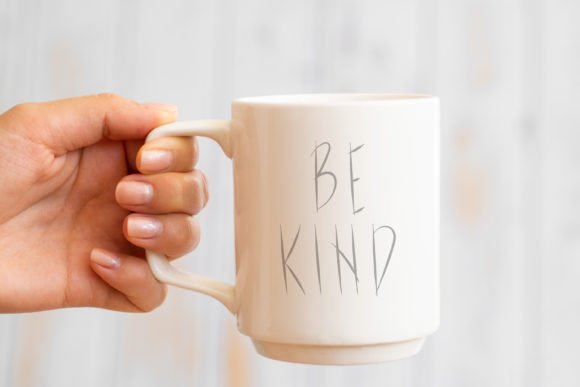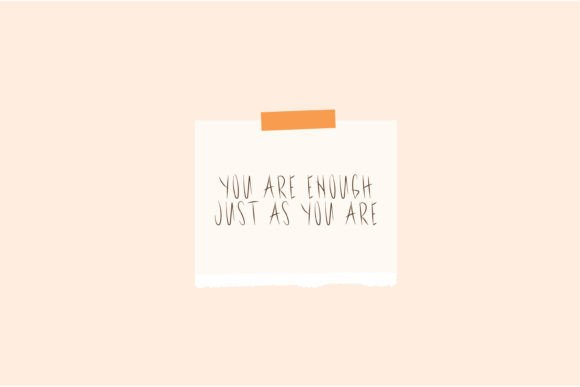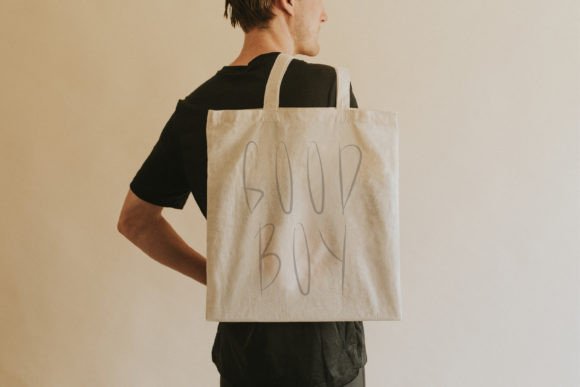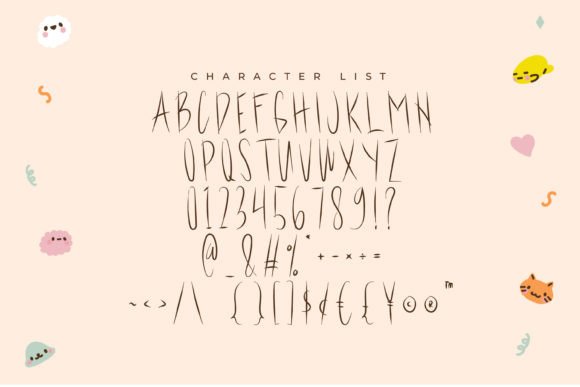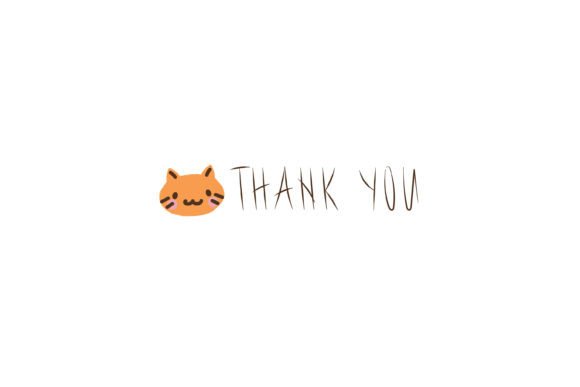
The Ultimate Guide to Greates Font: A Playful and Cute Display Font
I’ll never forget the time I was working on a children’s activity book project, and I was struggling to find the perfect font. My client wanted something playful, cute, and fun, but also authentic and on-trend. I spent hours scouring the internet for the perfect match, until I stumbled upon Greates Font. It was love at first sight! 💕
Greates Font embodies everything I was looking for: trendiness, authenticity, and a dash of playfulness. It’s the perfect choice for any children’s activity or school project, and I’m excited to share my experience with you.
An Honest Review of Greates Font
- ✨ Playful and cute design that’s perfect for kids’ projects
- 🎉 Supports OpenType features, glyphs, and stylistic alternates
- 👍 Works beautifully on both digital and print materials
While Greates Font is an amazing choice, there are a few things to keep in mind:
- ⚠️ Limited character set, which may not be suitable for complex projects
- 🤔 May not work well with very formal or professional designs
The Backstory of Greates Font
Greates Font was designed with one goal in mind: to create a playful and cute display font that’s perfect for kids’ projects. The designer, inspired by the world of children’s books and activities, set out to create a font that’s both fun and authentic.
The result is a font that’s perfect for any project that requires a touch of playfulness and whimsy. Whether you’re working on a children’s activity book, a school project, or a crafty DIY project, Greates Font is sure to delight.
Q: What is Greates Font?
Greates Font is a playful and cute display font designed specifically for kids’ projects and activities.
Q: Does Greates Font support OpenType features?
Yes, Greates Font supports OpenType features, glyphs, and stylistic alternates, making it a versatile choice for a wide range of projects.